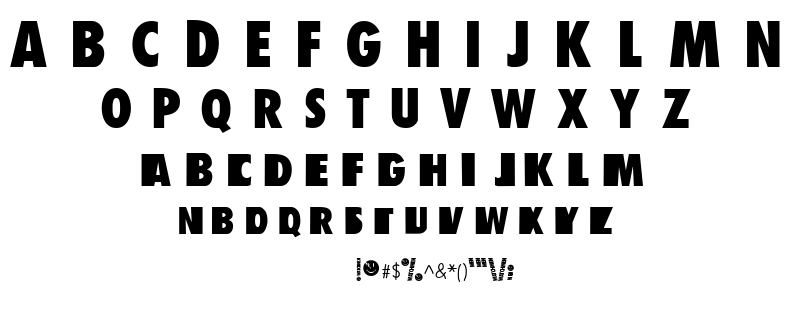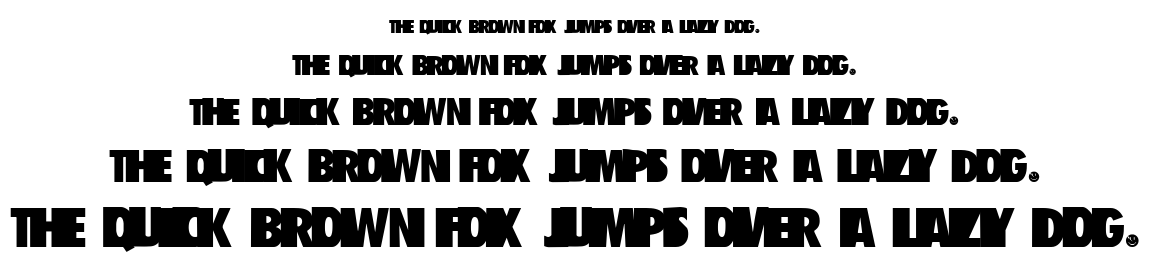
Watchmen font.
This font has been created to look like the title font from the film of the same name for personal use only.
Use the lowercase to start your name and the hyphen to add the blocks, smilie is under the • (bullet) and Rorschach under the @(ampisand).